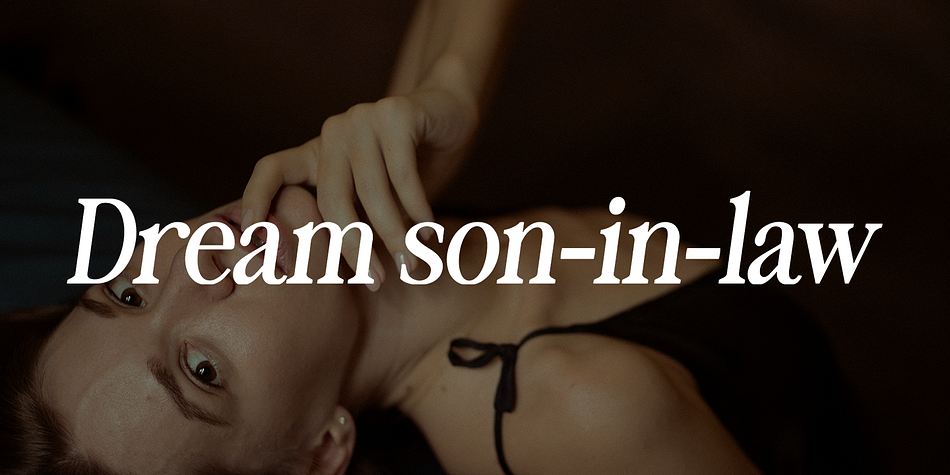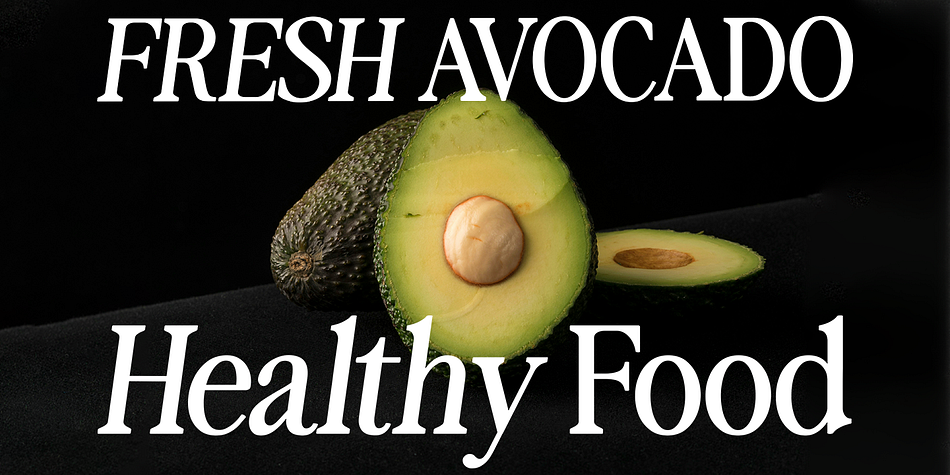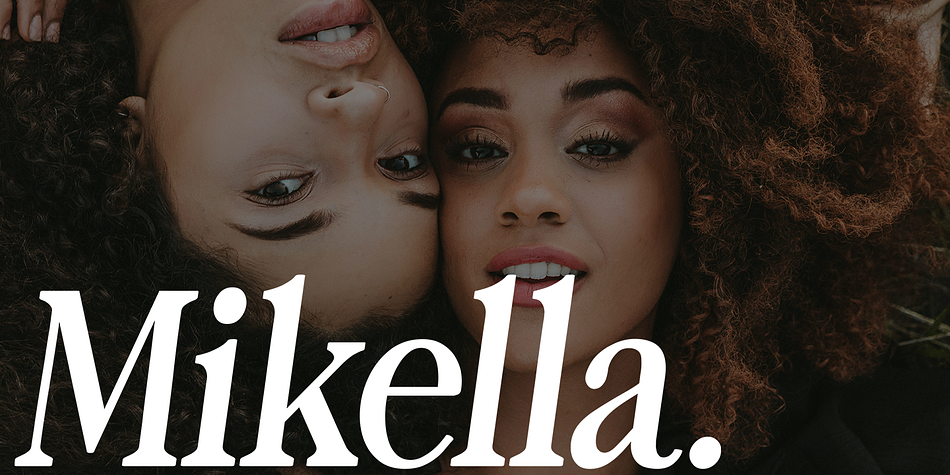
Philocalist
Philocalist is a serif font family. This typeface has two styles and was published by Positive TypeFoundry.
Philocalist is a modern serif font with a unique binding style, high contrast and light font perfect for feminine logo signs, fashion heads & editorial designs, branding projects, Apparel Branding, packaging, magazine titles, advertisements, T-shirts, postcards, and much more. Philocalist is a collection of versatile fonts that can be used & adapted to various design projects.